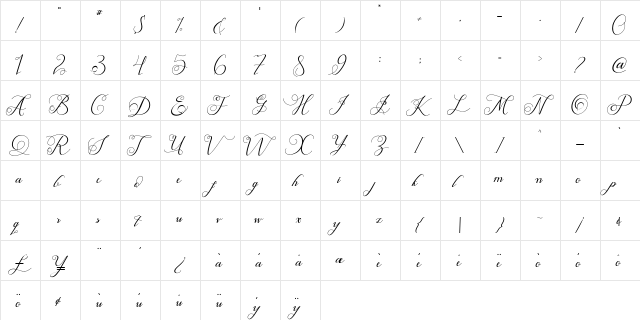
Satriana Regular
| Foundry | belovestudio |
| Designer | abdul manan |
Design Context for Satriana Typeface
Satriana takes a measured approach to typography — its balanced proportions and neutral character make it a reliable workhorse for both digital and print work.